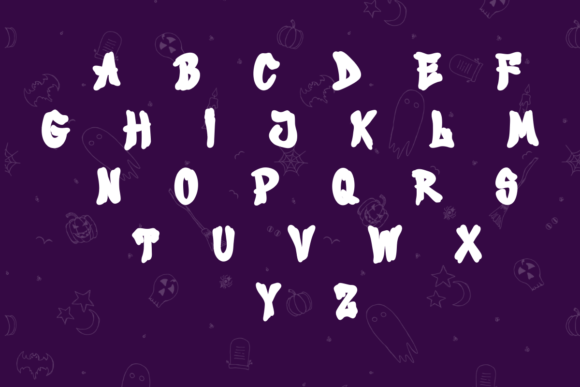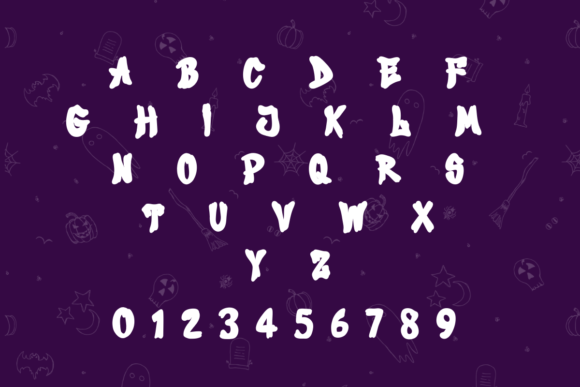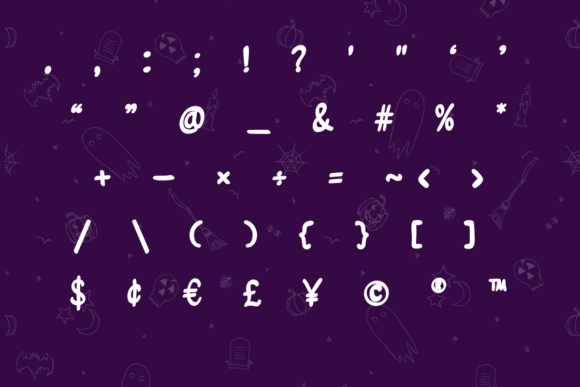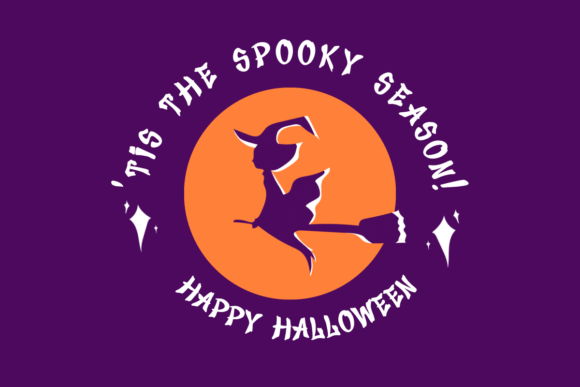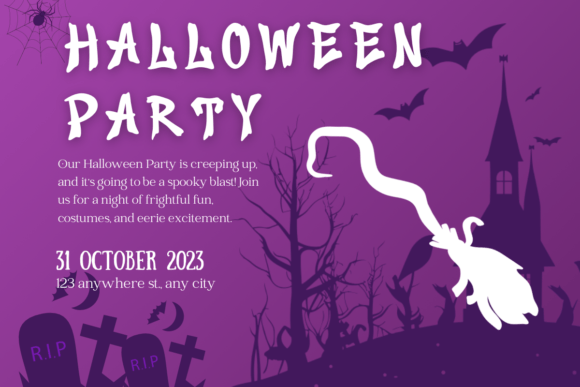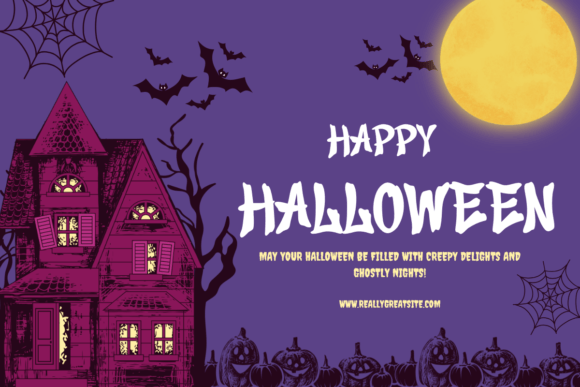
Introduction to Halloween Broomstick Font
As a designer, there’s nothing quite like the thrill of adding a new design element to a creative project. Whether it’s a bold color palette or a quirky font, the right resource can make all the difference in bringing your vision to life. And for designers looking to add a touch of spooky flair to their work, the Halloween Broomstick Font is a game-changer.
With its playful, whimsical design, this font is perfect for anything from Halloween invitations to decorations and more. Its quirky letters and high-quality design make it a valuable resource for designers looking to add a bit of festive flair to their work. And the best part? It’s available for free download, making it a must-have for any designer’s collection.
From graphic designers to crafty DIY enthusiasts, anyone can use the Halloween Broomstick Font to add a touch of magic to their designs. And with its transparent background, it’s easy to use in any creative project, from digital designs to printed materials. Whether you’re working on a high-profile campaign or a fun, personal project, this font is sure to bring a smile to your face and a touch of spooky charm to your work.
Key Features of Halloween Broomstick Font
- High-quality design for a creative project, perfect for Halloween-themed designs
- Unique, hand-drawn style with intricate details and textures, ideal for a design resource
- Includes a transparent background, allowing for seamless integration with other design elements
- Features a bold, gothic-inspired design with a medium size, making it suitable for a wide range of applications
Honest Review: Halloween Broomstick Font
As a designer, I was excited to dive into the Halloween Broomstick Font, a free download that promises to add a touch of magic to any creative project. The font is a great addition to any design resource, offering a high-quality, whimsical feel that’s perfect for Halloween-themed designs.
- What works well: ✨ The font’s unique, hand-drawn style is instantly recognizable and adds a touch of personality to any design. The transparent background allows for easy layering and manipulation, making it a great choice for digital designs.
- What works well: ✨ The font’s versatility makes it suitable for a wide range of creative projects, from social media graphics to print materials.
However, there are a few limitations to consider: ⚠️ The font’s complexity may make it difficult to use in certain contexts, such as in small font sizes or in designs with intricate layouts. Additionally, the font’s hand-drawn style may not be suitable for all design applications.
Overall, I’m impressed with the Halloween Broomstick Font. Its unique style and high-quality design make it a valuable addition to any design resource. While it may have some limitations, the font’s versatility and creative potential make it a great choice for designers looking to add a touch of magic to their work.